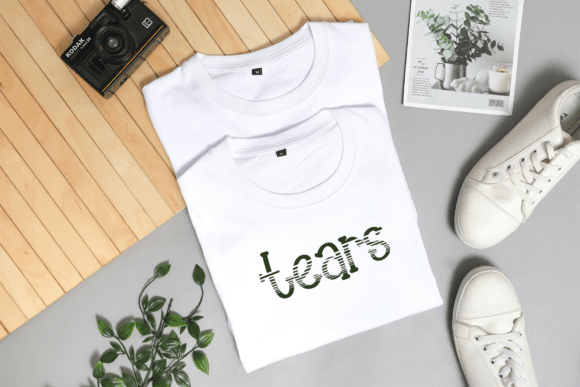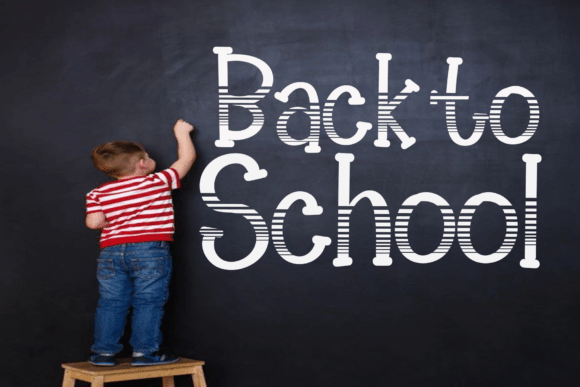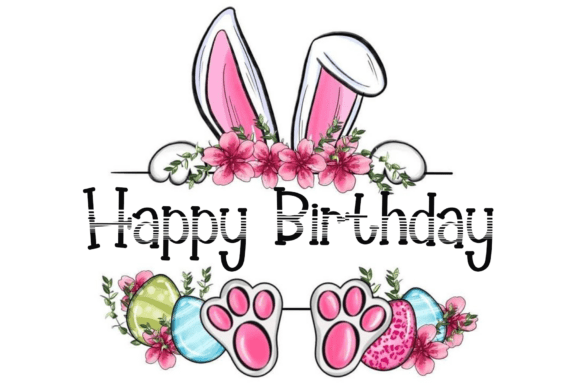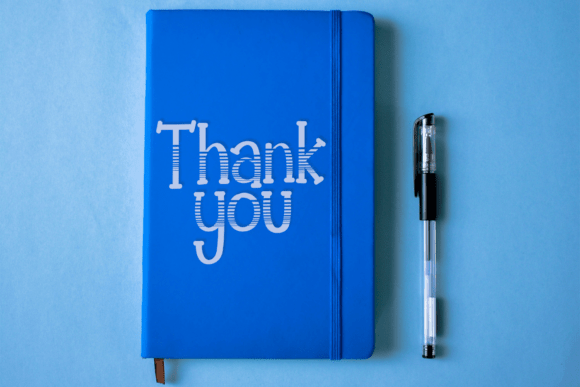
Introducing Activity Book Font: The Sweet and Friendly Handwritten Font for Creative Designs
Are you a designer, crafter, or DIY enthusiast looking for a font that can add a personal touch to your projects? Look no further than Activity Book Font, a sweet and friendly handwritten font that’s perfect for a wide range of designs. With its natural and unique style, Activity Book Font is incredibly versatile and can be used in various creative projects, from activity books and planners to crafts and DIY tutorials.
The Characteristics of Activity Book Font
Activity Book Font is a handwritten font that exudes warmth and friendliness. Its natural and unique style makes it stand out from other fonts, and its sweetness is sure to capture the hearts of your audience. The font’s characteristics include:
- Handwritten style: Activity Book Font is a handwritten font that gives your designs a personal and human touch.
- Natural and unique: The font’s natural and unique style makes it perfect for designs that require a touch of personality.
- Versatile: Activity Book Font can be used in a wide range of designs, from activity books and planners to crafts and DIY tutorials.
The Benefits of Using Activity Book Font
Using Activity Book Font in your designs can bring numerous benefits, including:
- Adding a personal touch: The font’s handwritten style adds a personal touch to your designs, making them more relatable and engaging.
- Standing out from the crowd: Activity Book Font’s unique style ensures that your designs stand out from the crowd and grab attention.
- Enhancing creativity: The font’s versatility and sweetness can inspire creativity and help you come up with innovative design ideas.
Activity Book Font is perfect for designers and crafters who want to add a personal touch to their projects. Whether you’re creating activity books, planners, crafts, or DIY tutorials, this font is sure to be a great fit. Its sweetness and friendliness make it perfect for:
- Activity books: Create engaging and interactive activity books for kids or adults with Activity Book Font.
- Planners and organizers: Add a personal touch to your planners and organizers with this sweet and friendly font.
- Crafts and DIY tutorials: Use Activity Book Font to create visually appealing and easy-to-follow craft and DIY tutorials.
Tips for Using Activity Book Font
Here are some tips for using Activity Book Font in your designs:
- Experiment with different sizes and colors: Try out different sizes and colors to see what works best for your design.
- Pair with other fonts: Experiment with pairing Activity Book Font with other fonts to create a unique and visually appealing design.
- Use in combination with images and graphics: Use Activity Book Font in combination with images and graphics to create a visually appealing design.
In conclusion, Activity Book Font is a sweet and friendly handwritten font that’s perfect for designers, crafters, and DIY enthusiasts. Its natural and unique style makes it incredibly versatile, and its sweetness and friendliness make it perfect for a wide range of designs. Whether you’re creating activity books, planners, crafts, or DIY tutorials, Activity Book Font is sure to be a great fit. So why not give it a try and see what amazing designs you can create?